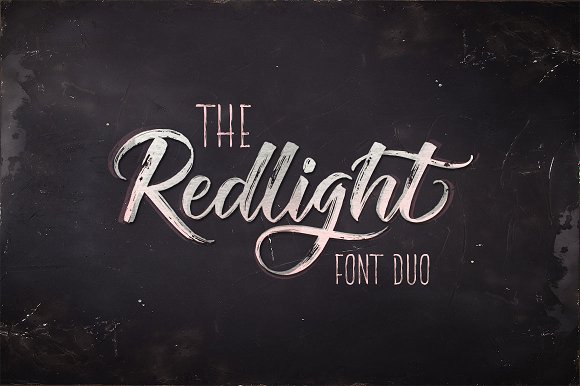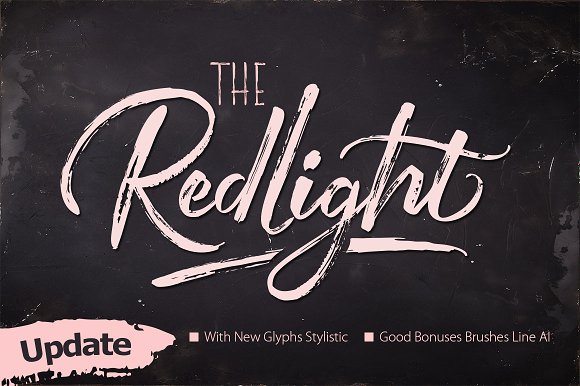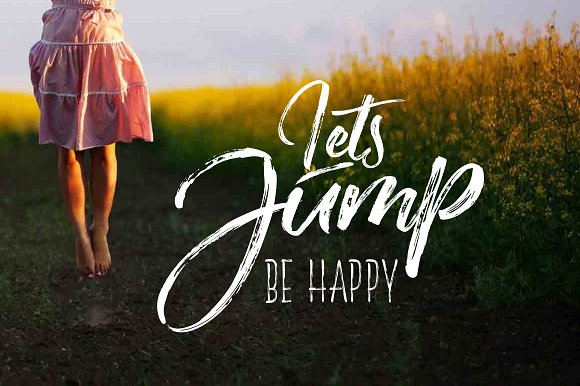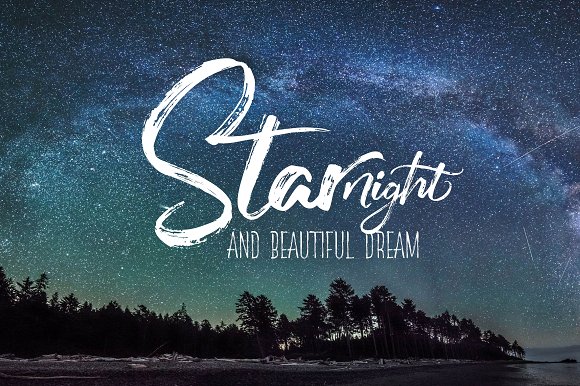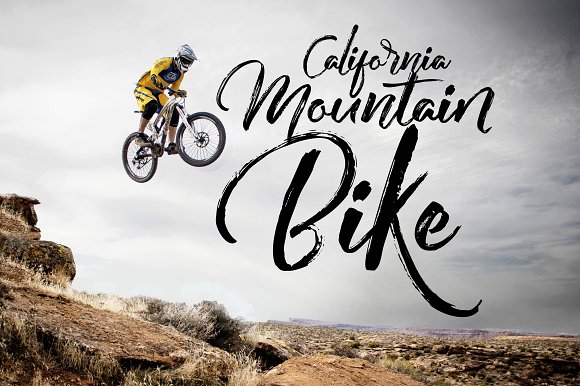
HomeScript FontsThe Redlight Font Script Fonts The Redlight Font FacebookXPinterestWhatsApp The Redlight Font Poster 2 The Redlight Font Poster 3 The Redlight Font Poster 4 The Redlight Font Poster 5 The Redlight Font Poster 6 About The Redlight Font The Redlight font duo is a beautiful script duo suitable for many different types of projects. DOWNLOAD ON CREATIVE FABRICAThis font is sold and delivered by Creative Fabrica. Font Canyon may earn a commission if you buy through this link. People also explored Masterday Font Winter Script Font Homemade Apple Pro Custerr Font Santallria Font NeoScript Pro Alicia Catherine Font Megilan Font Kap Font 286 0 TagsThe Redlight Font Previous articleSuthejo FontNext articleTynabella Font LEAVE A REPLY Cancel reply Comment: Please enter your comment! Name:* Please enter your name here Email:* You have entered an incorrect email address! Please enter your email address here Website: Save my name, email, and website in this browser for the next time I comment. Personal Use Free Choco Shake Font Personal Use Free Read more about this font England Personal Use Free Read more about this font Little Pixel Personal Use Free Read more about this font Ardilla Font Personal Use Free Read more about this font BLOG Using Fonts in Digital Marketing: Tips to Strengthen Your Brand Identity In the realm of digital marketing, every visual element plays a crucial role in shaping a brand's identity, and fonts are no exception. The... 5 Fonts That Will Dominate Design Trends in 2026 Where to Buy American Fonts Online in 2024 Elegant Wedding Invitation Fonts – Handwritten & Script Fonts